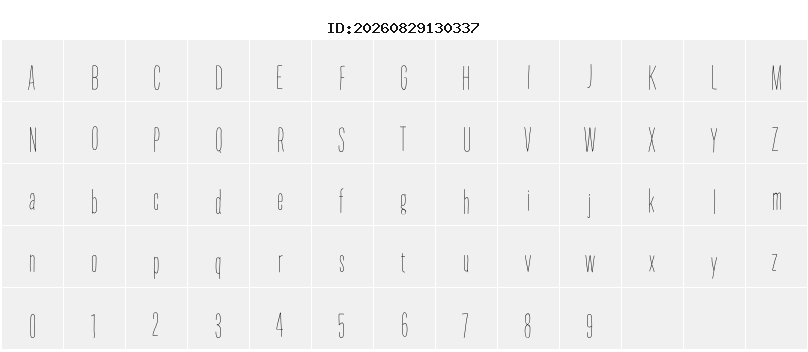
• Font Name: ThinFingers ThinFingers
• Full Font Name: ThinFingers-ThinFingers
• Copyright: BIBLIOPOLÆ
• Designer: Brice You / BIBLIOPOLÆ
About ThinFingers ThinFingers.otf
ThinFingers ThinFingers.otf is a modern, elegant sans-serif font designed for ultimate readability and visual harmony. Perfect for branding, headlines, web design, and print materials.